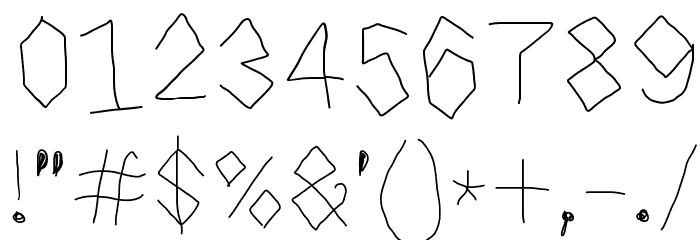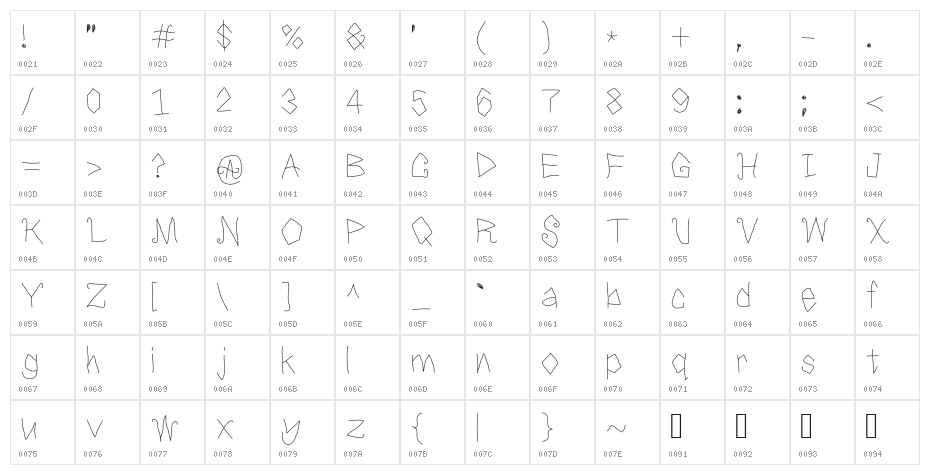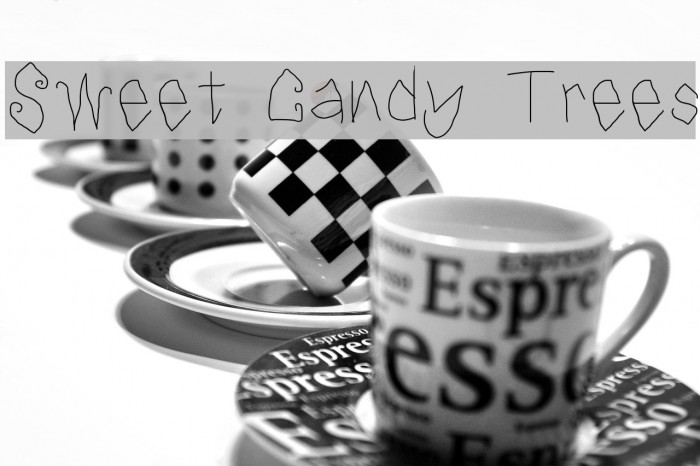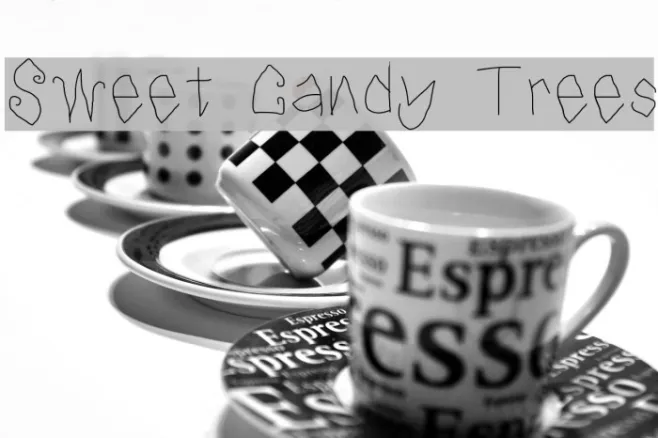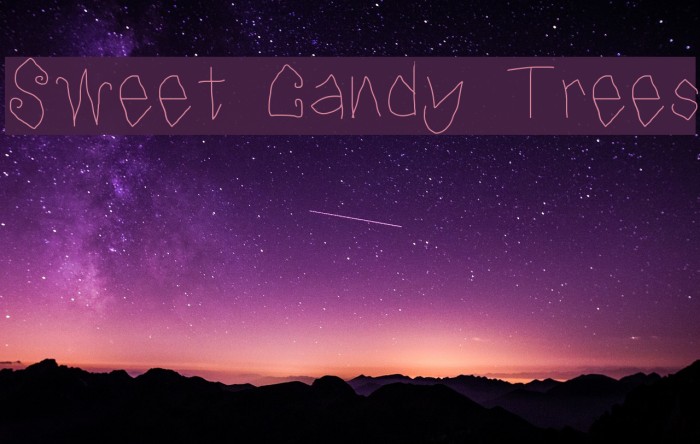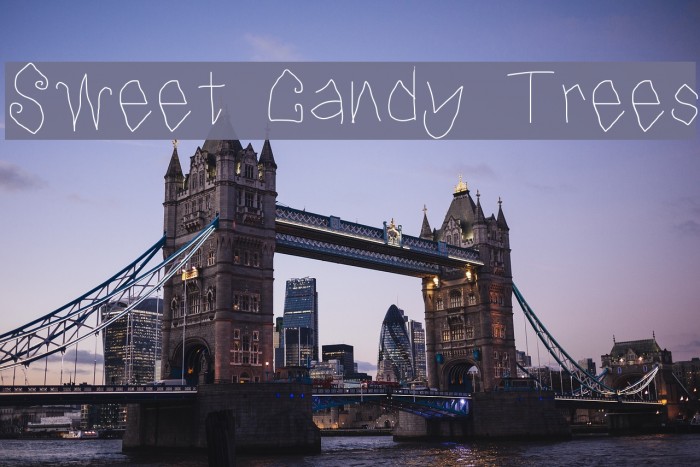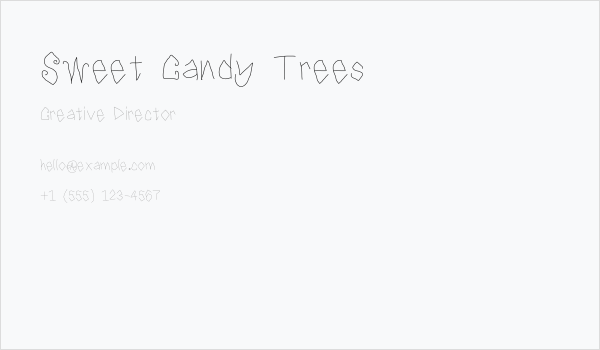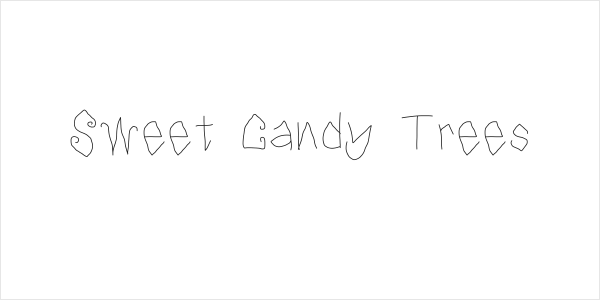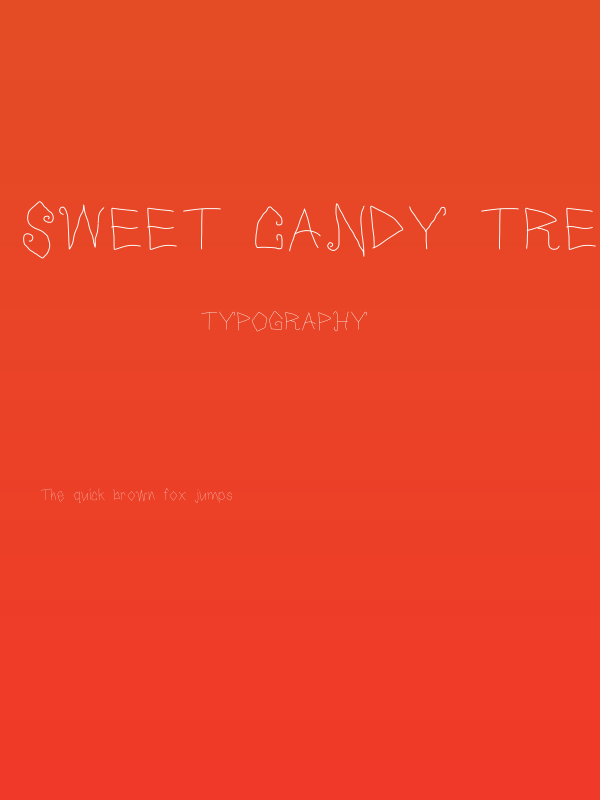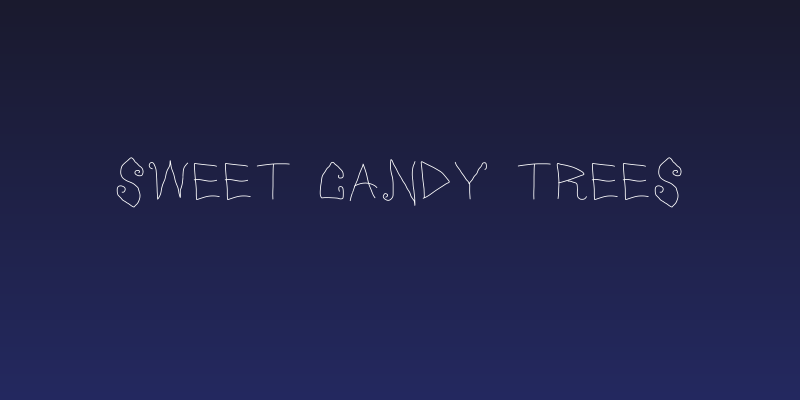
Sweet Candy Trees Font
Sweet Candy Trees Description
This font features a whimsical and playful design, characterized by its irregular and hand-drawn appearance. The letters have a quirky, almost childlike quality, with uneven lines and a casual, freeform style. The uppercase and lowercase letters maintain a consistent theme, with each character exhibiting unique, artistic variations. Numbers and special characters follow the same playful aesthetic, adding to the font's overall charm. The font's organic and spontaneous look makes it ideal for projects that require a touch of creativity and fun.